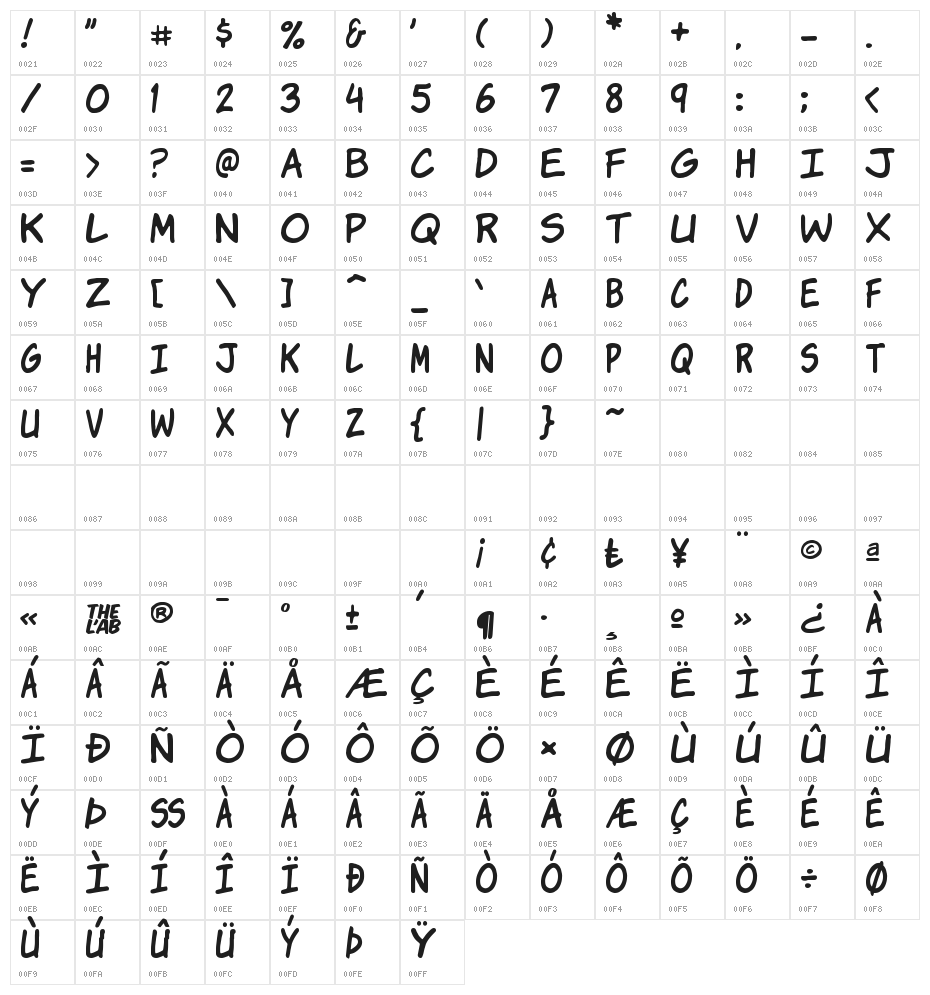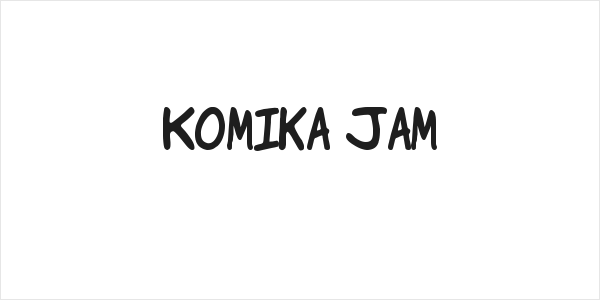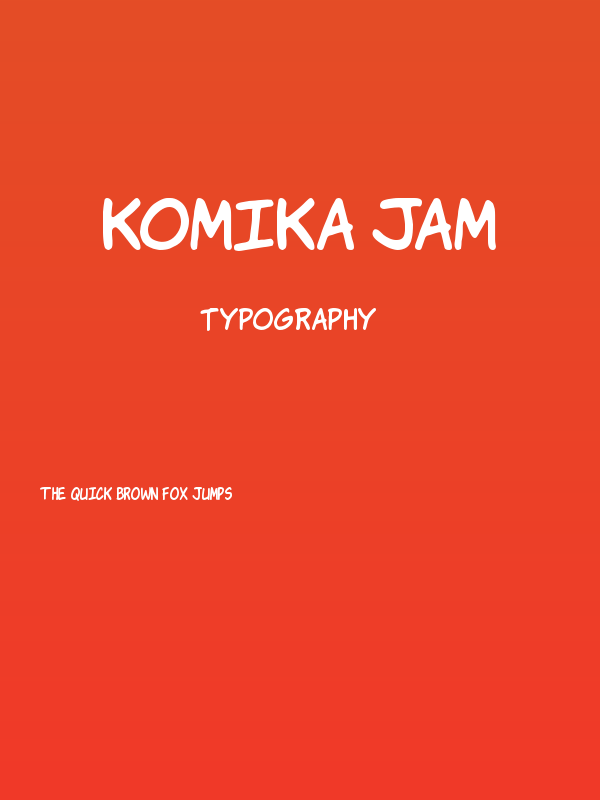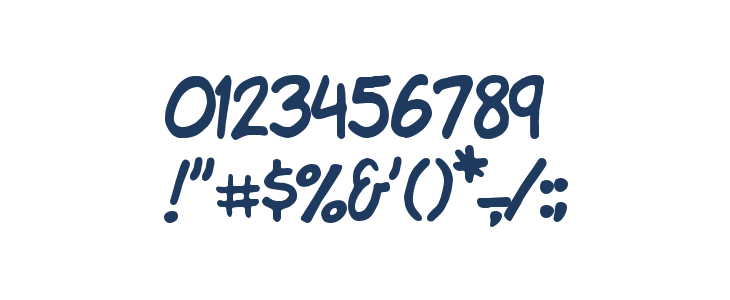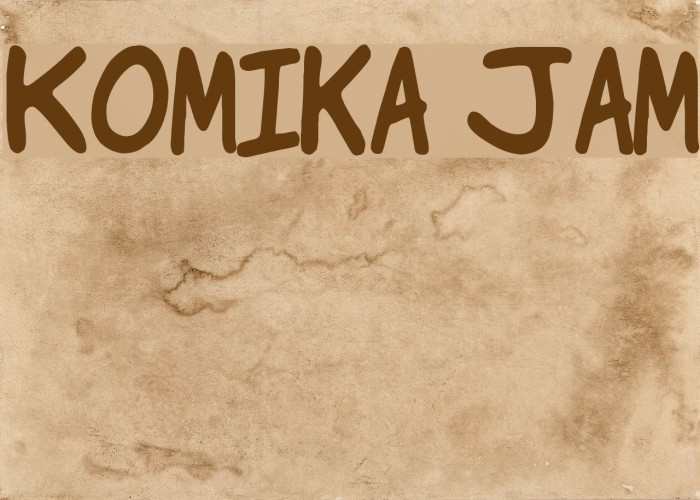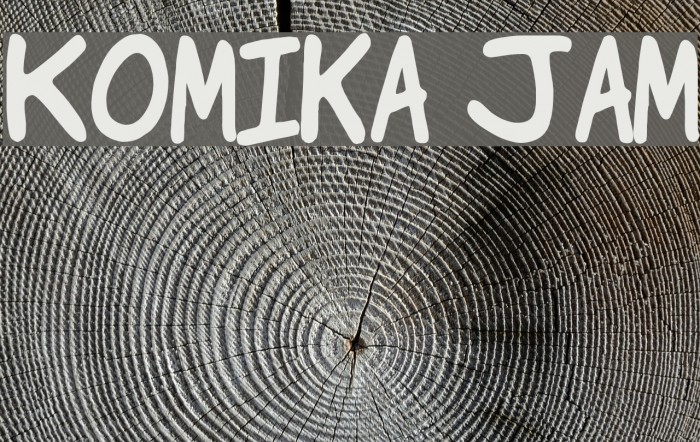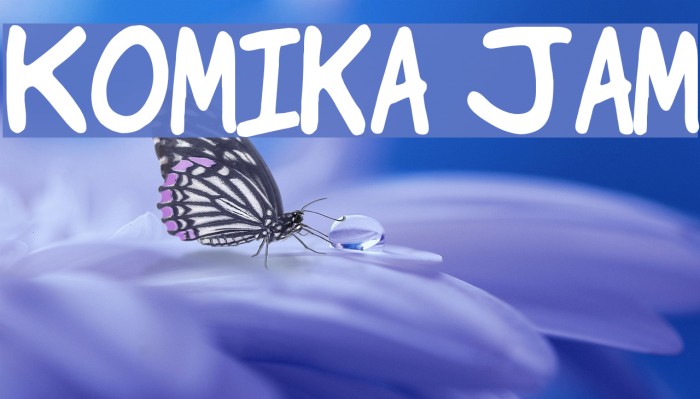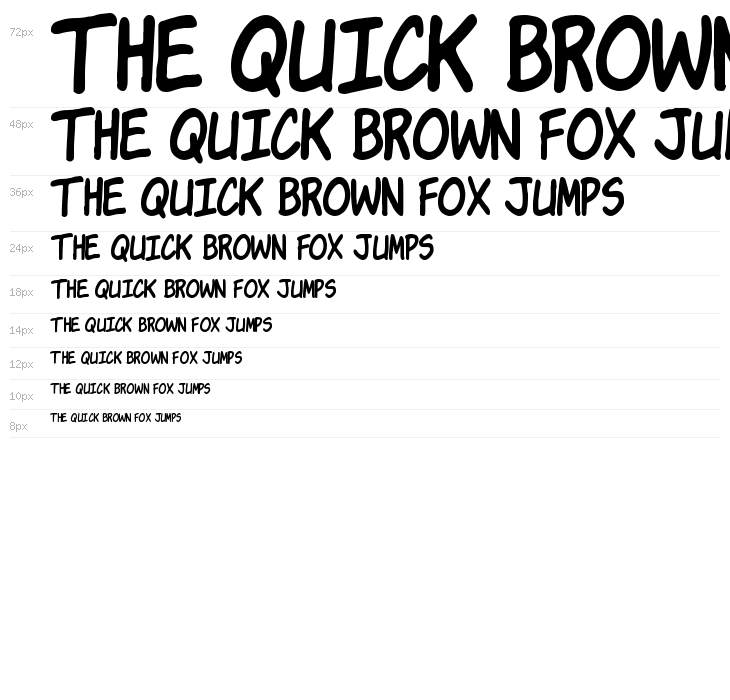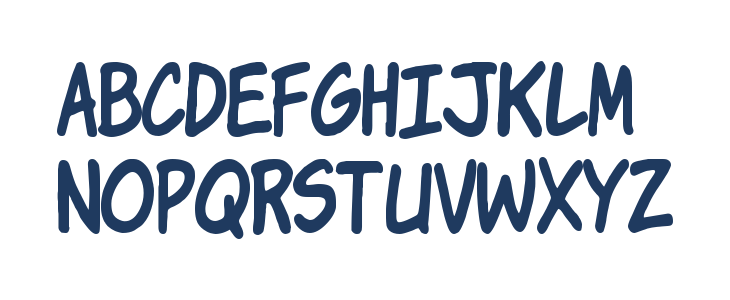
Komika Jam Font
Komika Jam Description
This playful and bold font features a handwritten style with a casual and friendly appearance. The letters are rounded and slightly irregular, giving it a whimsical and approachable feel. It is highly legible, with consistent stroke thickness and a lively character. The font includes both uppercase and lowercase letters, numerals, and a variety of special characters, making it versatile for different uses. Its energetic style is perfect for projects that require a fun and informal touch.
| Proposed Projects | Ideal for comic books, children's books, posters, and playful branding projects. |